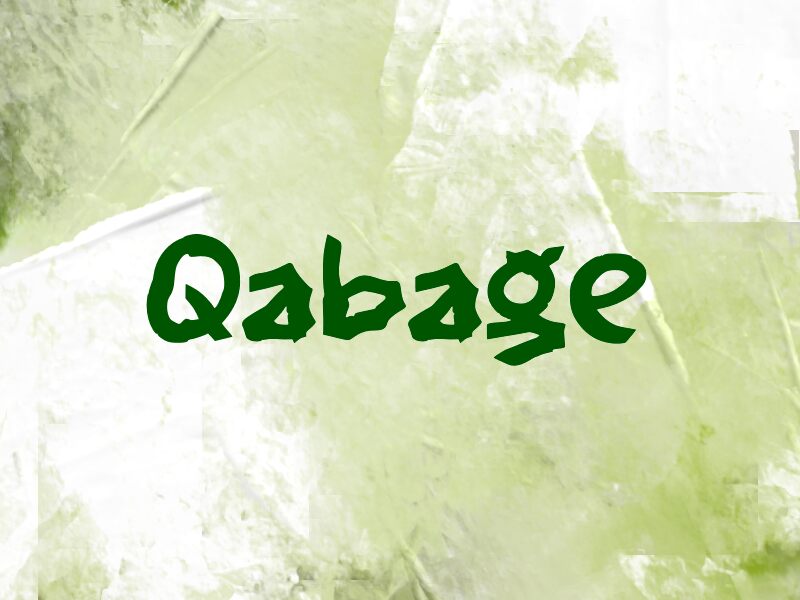
Qabage font by wep is a free font that mixes ancient and decorative styles with modern fancy influences. This remarkable medieval-inspired typeface has a strong personality, plenty of historical character, and is both mysterious and compelling. Its apparently untimely style makes it a unique addition to any typography design.
Qabage can be used in modern and historical designs. It is ideal for book covers and works of historical fiction, as well as antique shops and libraries. Other possible uses include restaurant branding, independent magazines, game designs, fashion brochures, promotional materials, album covers, or art exhibition titles.
Qabage is a unique free font that stands out with its distinct style and versatility. Perfect for a variety of design projects, this font can add an eye-catching element to your work. With its modern aesthetic, Qabage works well for both digital and print applications.